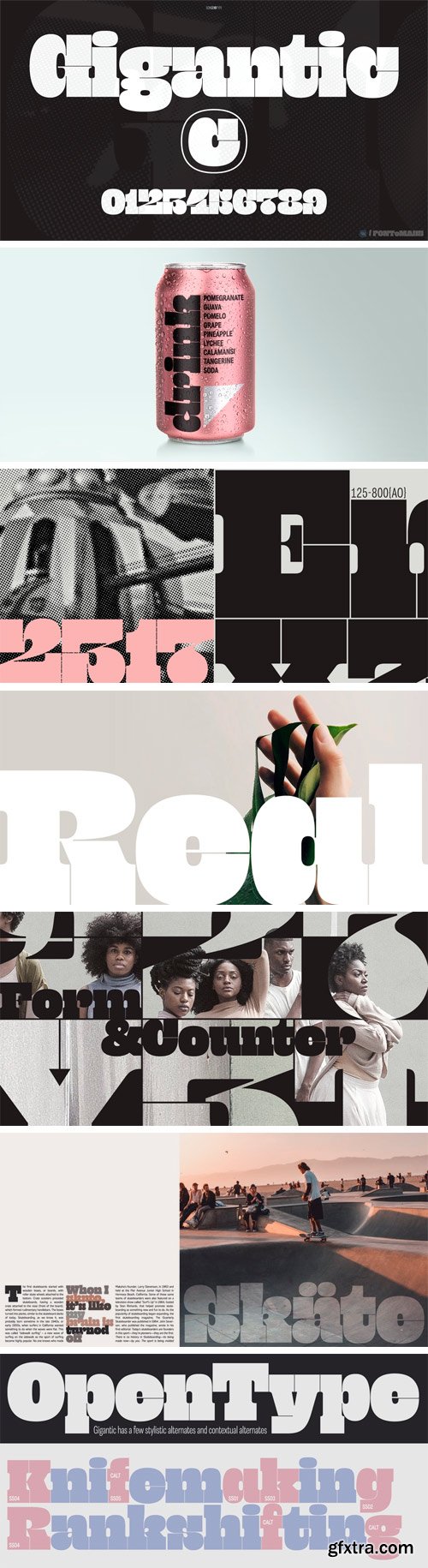
Gigantic, as the name suggests, should be set large. The type is spaced "tight-not-touching" so you really don't want to go under 72 points. The font is intended to be used to create an impact - a chunk of text will have a graphic aesthetic while maintaining legibility. Because it's so bold, it's a great face to use with images showing through. Ideal for magazine headlines and posters, not so ideal for setting novels.